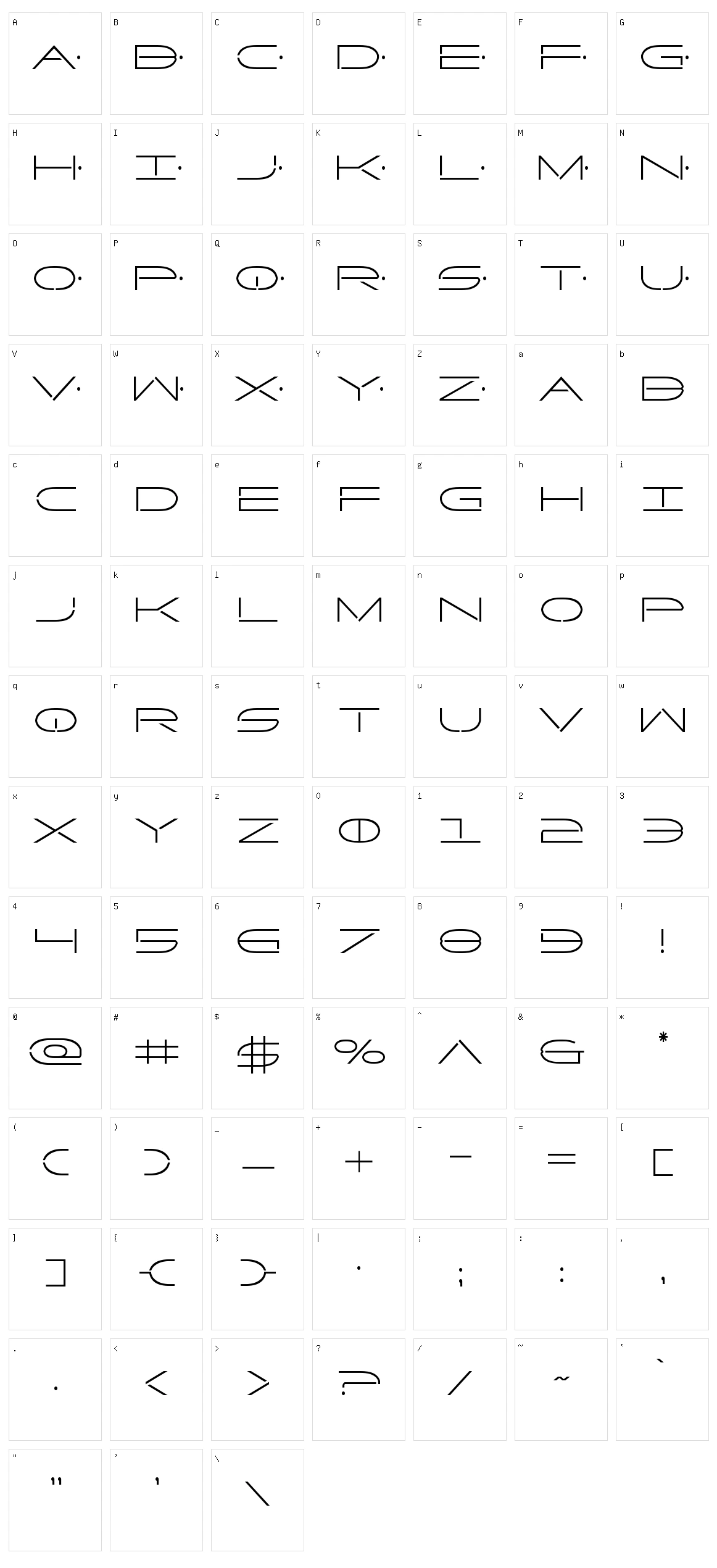
Factor
Description: The free font Factor is carefully designed by Iconian Fonts, showcasing a thoughtful balance of creativity and usability and belongs to the Techno font family. When you download the ZIP file, it contains only 277.54 KB of font files, making it lightweight and quick to download. Please review the license details below to understand permitted usage and distribution rights. If license information is not available, we recommend using this font for personal projects only or contacting the author directly for commercial usage permissions.